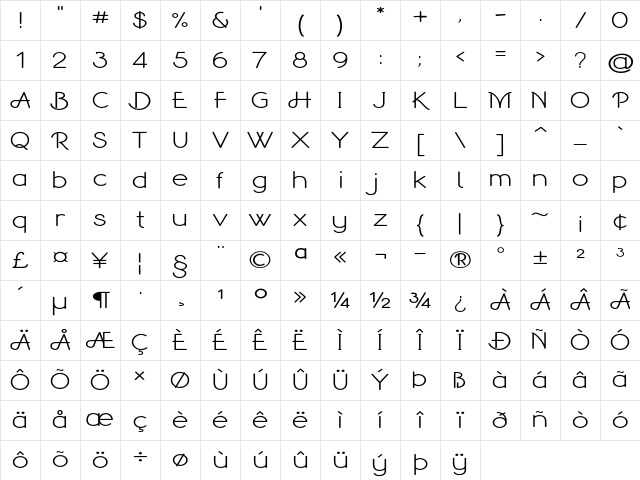
Lollipop Expanded Regular Free Font
Lollipop Expanded Regular
Style: Expanded Regular
Design Context for Lollipop
Lollipop is a composed and adaptable typeface that performs quietly and consistently across a wide range of design contexts.